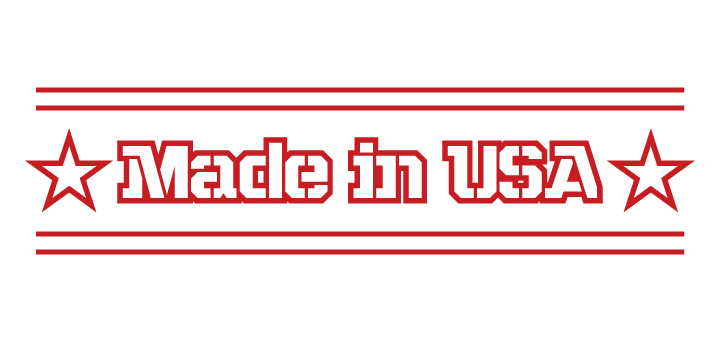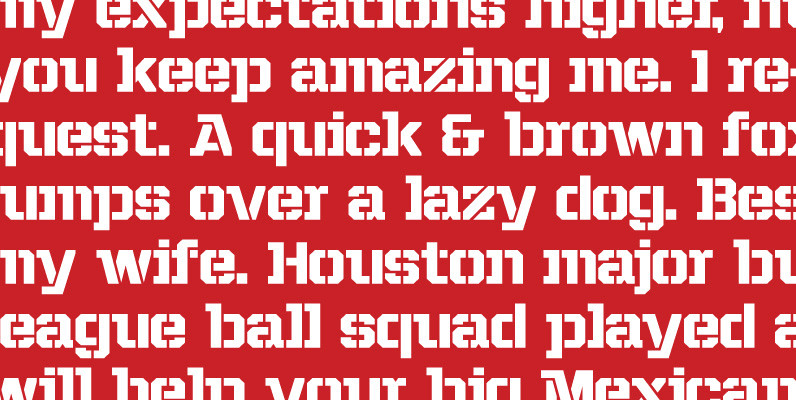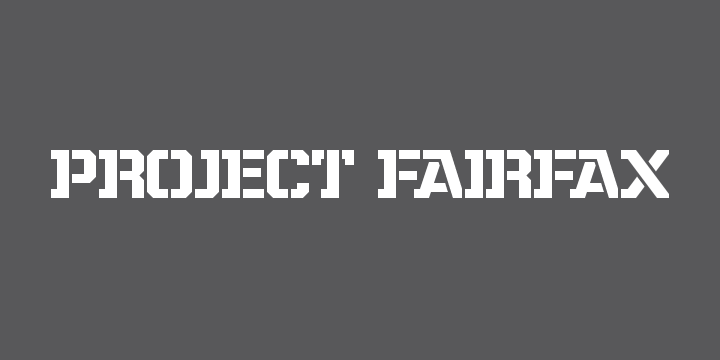
Project Fairfax
About Project Fairfax
Project Fairfax is a unique stencil typeface designed on a strict grid. It is perfect for any stencil design, especially a military look. It comes in three styles, sans, regular, and slab; each with a non stencil counterpart. It comes with a full Latin…